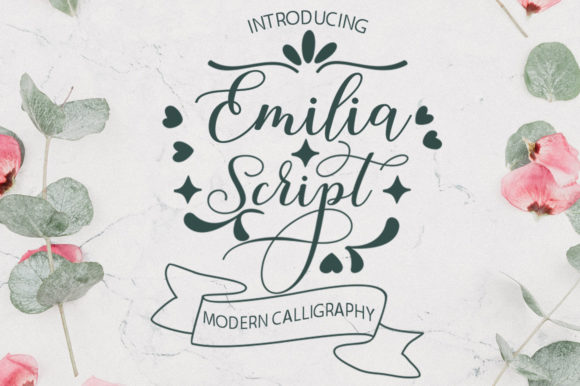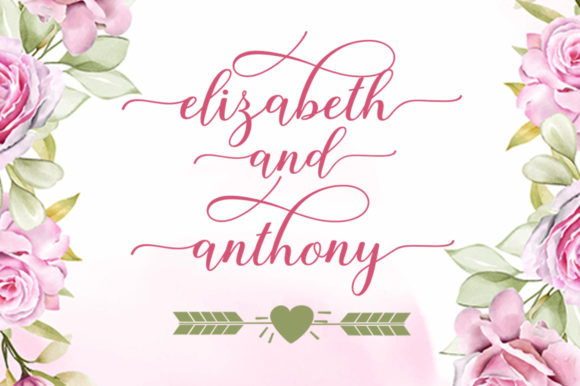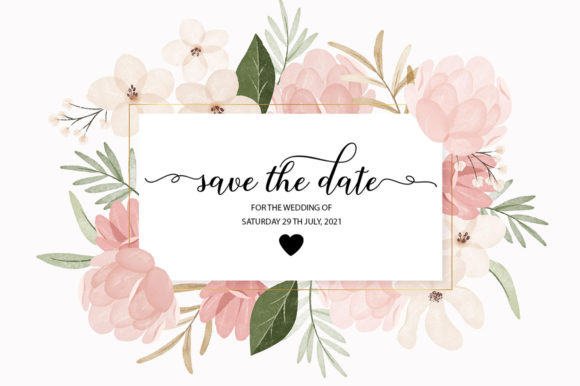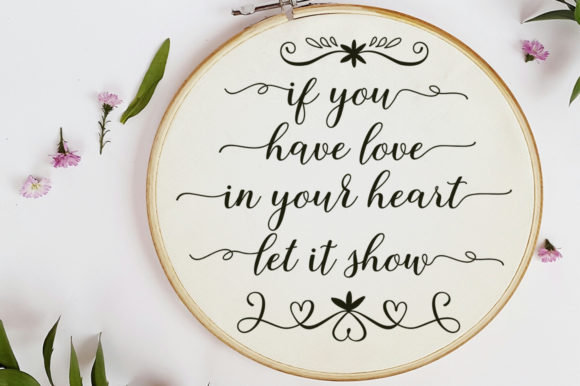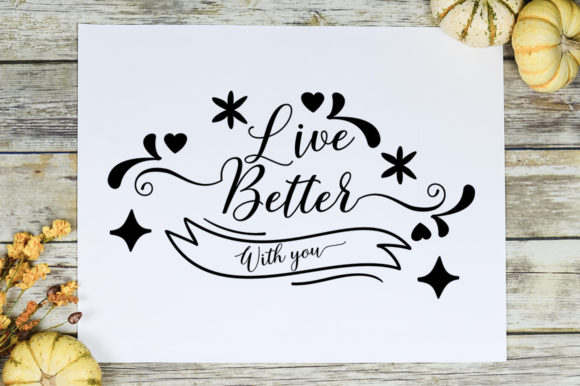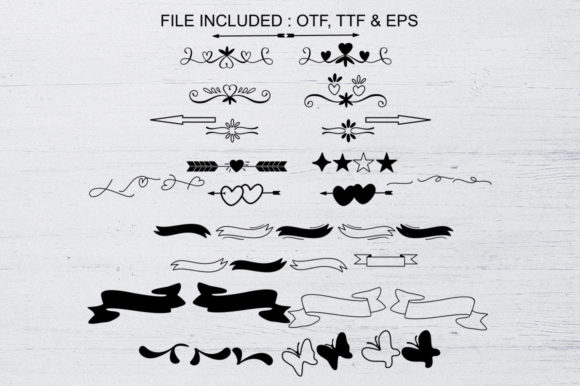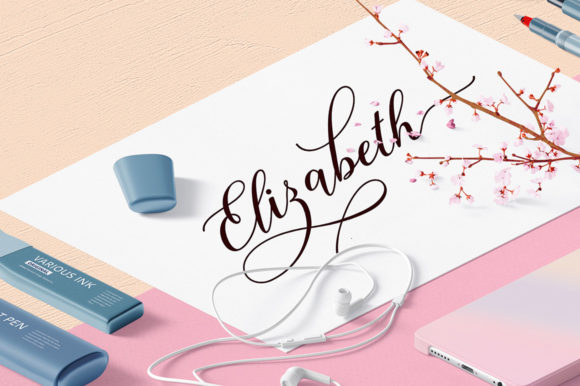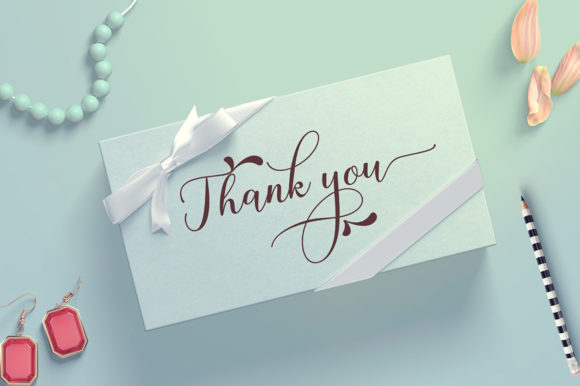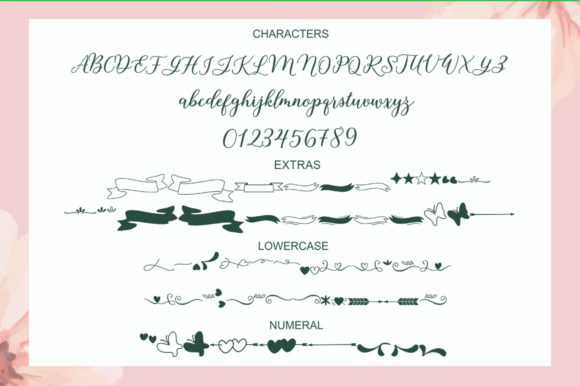
Emilia Script Font
About Emilia Script Font
Emilia Script is a beautiful and light handwritten font, featuring a unique feel and a stunning impact. It will add a luxury spark to any design project that you wish to create! This font is PUA encoded which means you can access all of the amazing glyphs and ligatures with ease!